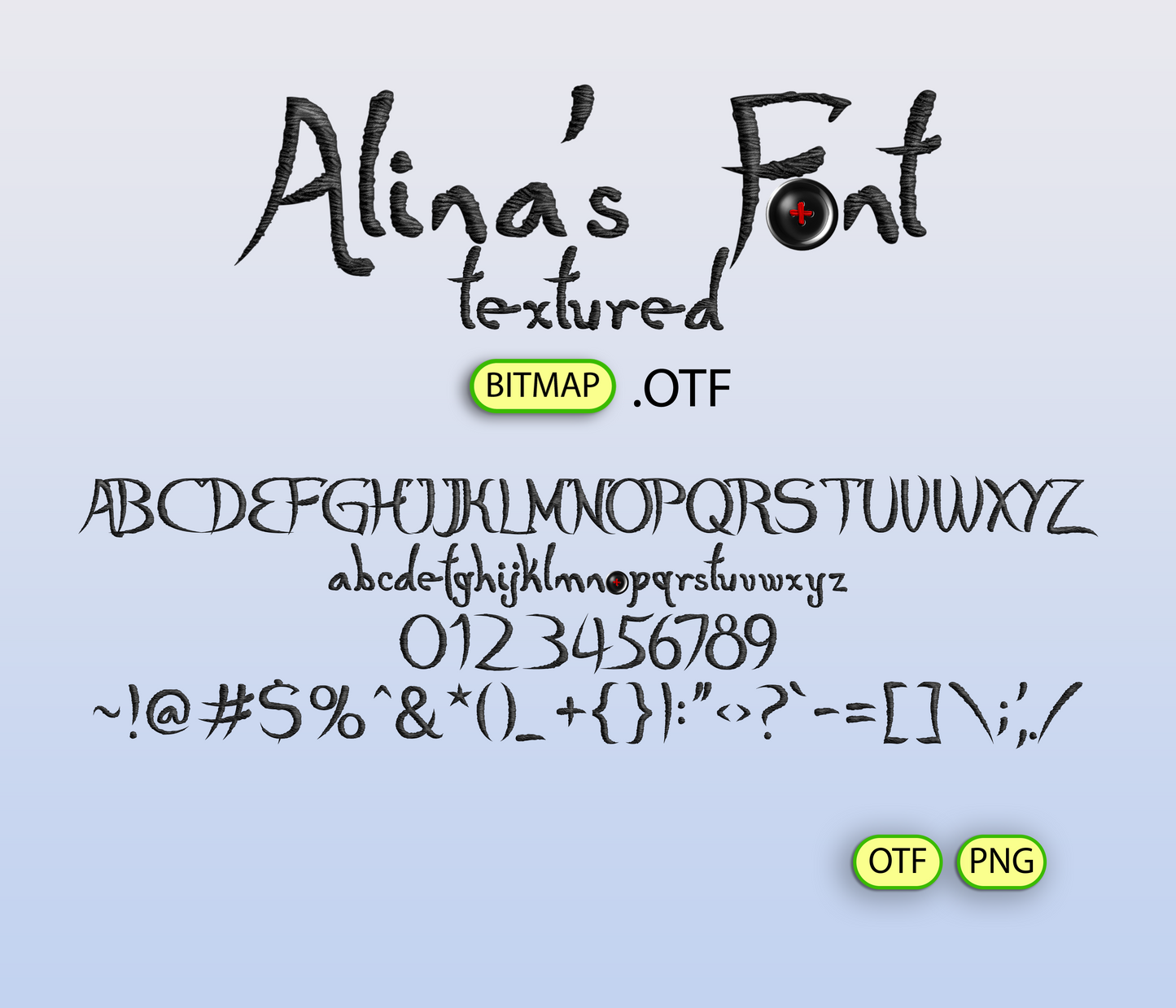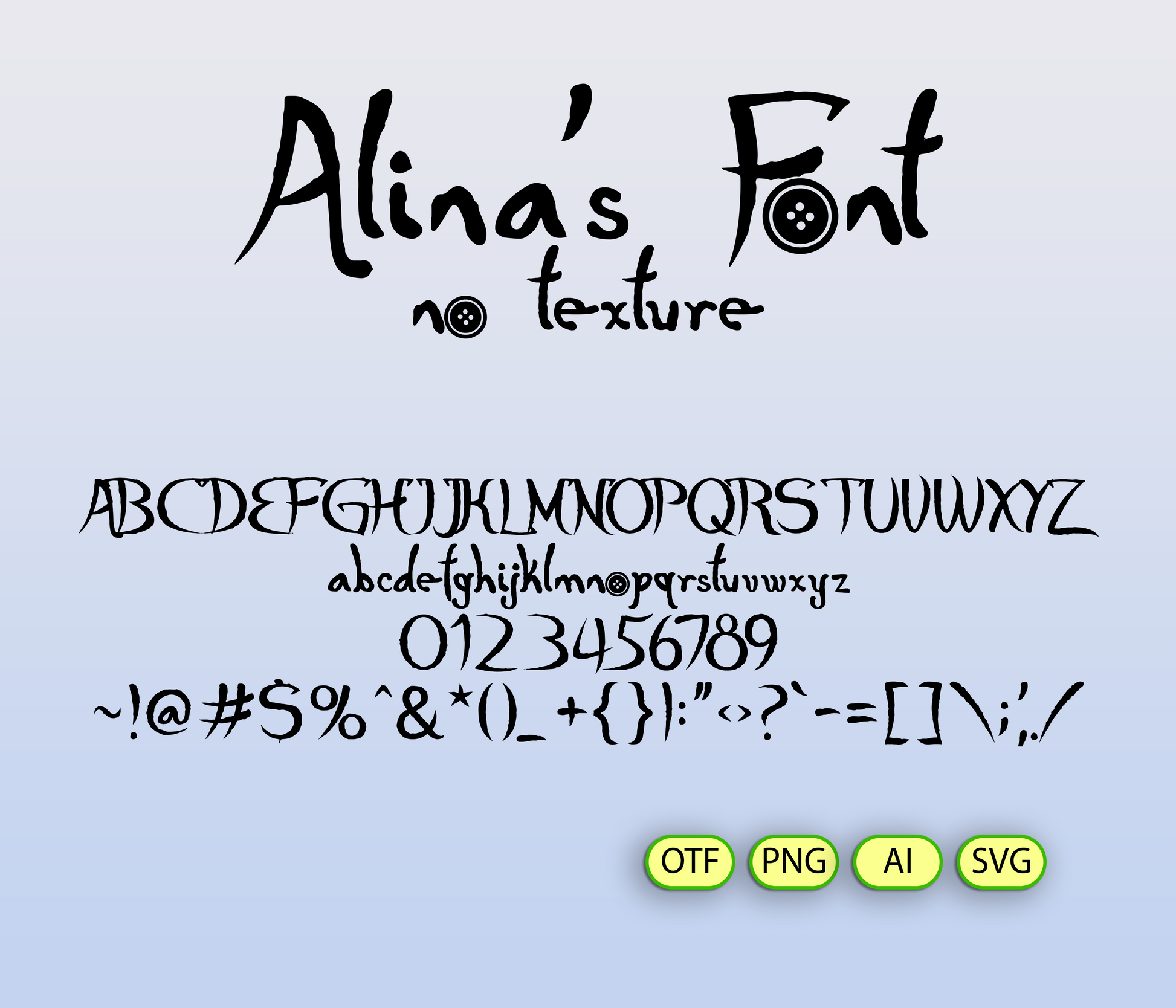
Button-Eyed Wonder Font Textured
Immerse yourself in a world where reality meets fantasy with our Button-Eyed Wonder font. This captivating typeface embodies the essence of a young dreamer's journey through parallel dimensions, blending childlike wonder with a dash of uncanny allure. Ideal for projects aiming to capture the spirit of youthful exploration tinged with gentle eeriness.
Our Button-Eyed Wonder font showcases a quirky, hand-drawn aesthetic with slightly askew characters that hint at the thin veil between the ordinary and the extraordinary. Perfect for:
1. Literary Visuals: Design intriguing covers for youth fantasy novels
2. Animated Content: Enhance titles and credits in films about secret doors and hidden worlds
3. Interactive Entertainment: Bring a touch of whimsical spookiness to game user interfaces
4. Themed Attractions: Create signage for rides and experiences centered on magical journeys
5. Online Presence: Develop captivating headers and visuals for web platforms focused on imaginative narratives
6. Branded Products: Produce apparel, art prints, and accessories inspired by otherworldly adventures
7. Autumn Festivities: Craft eye-catching materials for family-friendly eerie celebrations
The Button-Eyed Wonder font offers both textured and clean variants, ensuring broad compatibility across design platforms, including popular online creative tools. This versatility makes it accessible for designers of all experience levels.
From promotional content for fantasy-themed events to merchandise design for enthusiasts of magical tales, or adding an enchanting flair to personal projects, this font effectively communicates the wonder and subtle unease of exploring unknown realms. Ready to infuse your creations with the spirit of otherworldly discovery? This font is your gateway to captivating, imaginative design.